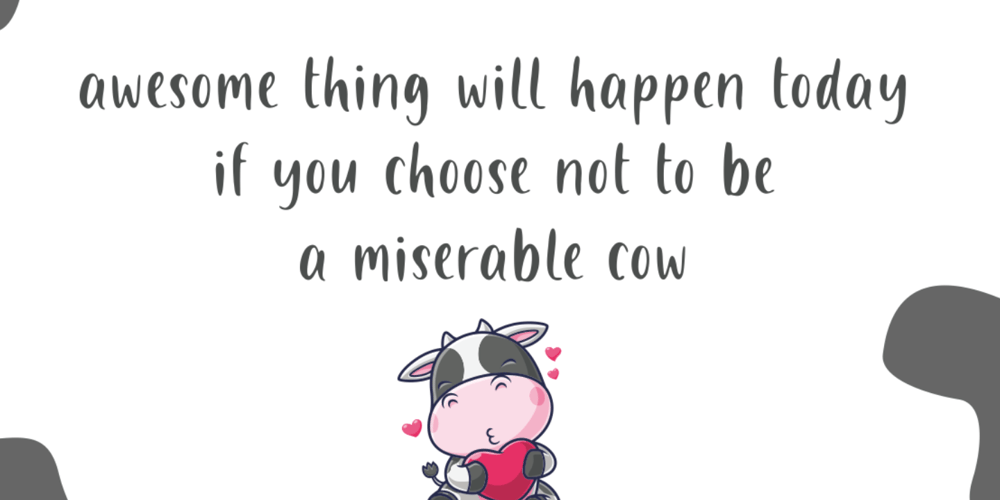
Milkhouse
Milkhouse font
Milkhouse Font Family was designed by Muhamad Yusron Billah and published by Sronstudio. Milkhouse contains 1 styles and family package options. Milkhouse is a handwritten font, this font Is perfect for logo, invitation, stationery, wedding designs, social media posts, advertisements, product packaging, product designs, label, photography, watermark, special events or anything.Milkhouse comes with uppercase and lowercase letters, multilingual symbols, numerals, punctuation.